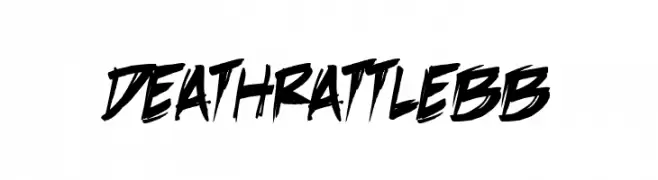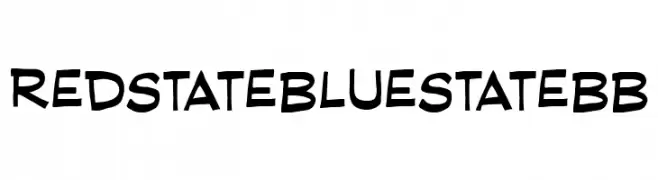
A bold, playful handwritten font with dynamic, slightly irregular strokes.
A bold, brush-style font with dynamic, slanted characters.
A bold, edgy font with sharp, dynamic strokes and a graffiti-like style.
A hand-drawn, textured font with an artistic, graffiti-like style.
A bold, playful font with a hand-drawn, informal style.
A bold, dynamic font with a slight slant and consistent stroke width.
A dynamic italic font with playful, slanted letterforms and a modern, informal style.
A bold, playful font with a comic book style and rounded, slightly slanted characters.